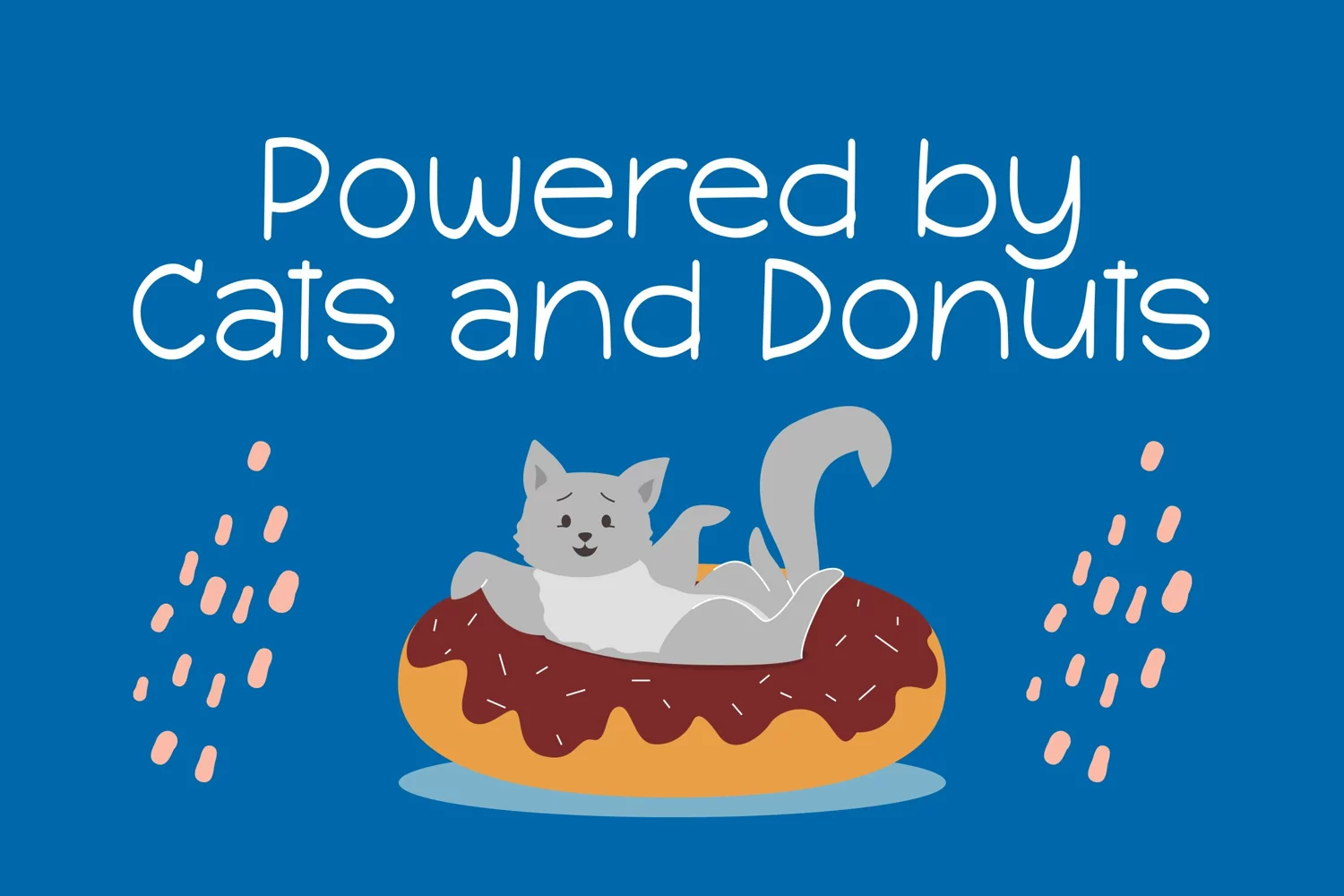
Little Miyaw - Cute Little Font that contain lowercase, uppercase, symbol, and also support multi language. There’s a lot ligatures in this font. This Font also comes with ligatures, alternates and many more. this font suitable for fashion, branding, catalog and other design what you want.
Little Miyaw